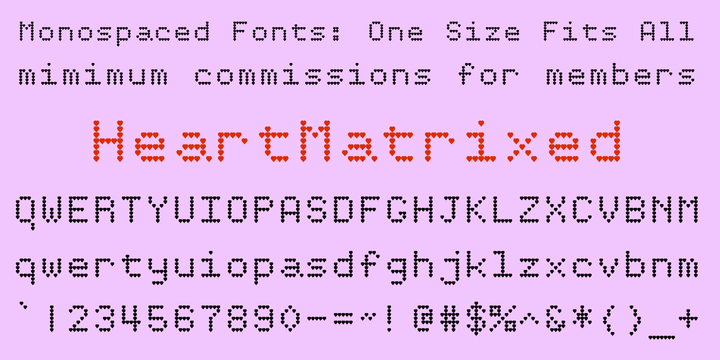
Heart Matrixed
Design Credits
Designed by: Robert Schenk
Designed when: 1995
Design owned by: Ingrimayne Type
Heart Matrixed
This font is based on a matrix of dots in the shape of little hearts.